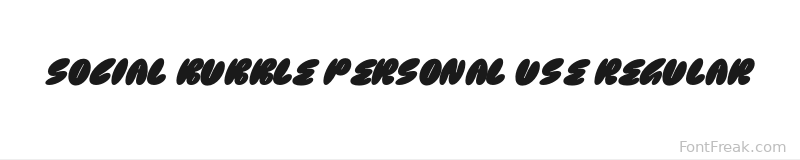
Social Bubble PERSONAL USE Regular
About Social Bubble PERSONAL USE Regular
Social Bubble PERSONAL USE Regular by Mans Greback is a delightful display font that captivates with its playful and bubbly design. This typeface falls into the category of decorative fonts, making it a perfect choice for various creative projects. The font features a consistent stroke weight with soft, rounded edges that contribute to its friendly and approachable aesthetic. The spacing between the letters is generous, allowing for easy readability while maintaining a fun and whimsical character. Its unique design elements, such as the exaggerated curves and rounded forms, evoke a sense of joy and lightheartedness.
This font is ideal for a range of applications, including eye-catching wedding invitations that can set a cheerful tone, vibrant movie posters that need to grab attention, and engaging restaurant menus that invite diners to explore their culinary offerings. Furthermore, it works wonderfully for social media graphics, where a personable touch can enhance brand identity, making it a favorite among content creators looking to stand out.
What sets this font apart is its ability to convey a sense of fun while remaining versatile enough for various uses. Whether you're crafting a lighthearted flyer, designing a playful website, or creating merchandise that resonates with a youthful audience, this font delivers an engaging visual impact that draws attention and brings smiles. With its unique style and cheerful vibe, Social Bubble is sure to become a go-to choice for those looking to add a touch of whimsy to their designs.